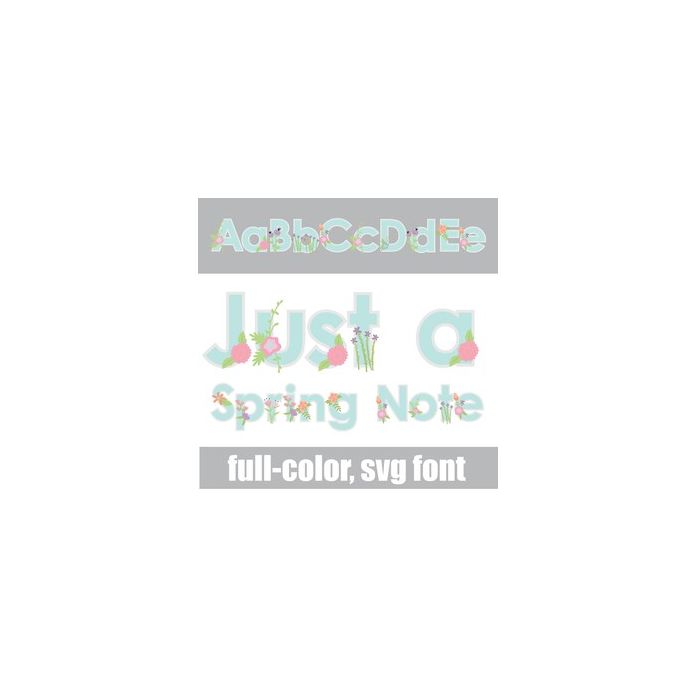
This full-color font features pretty flowers on pastel lettering. There is an alt case w/ additional colors you can access through your system or Silhouette's glyph map.